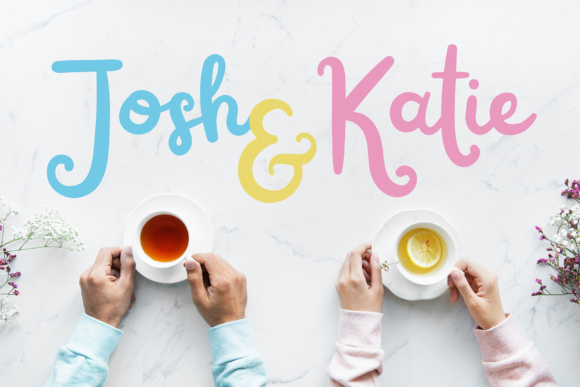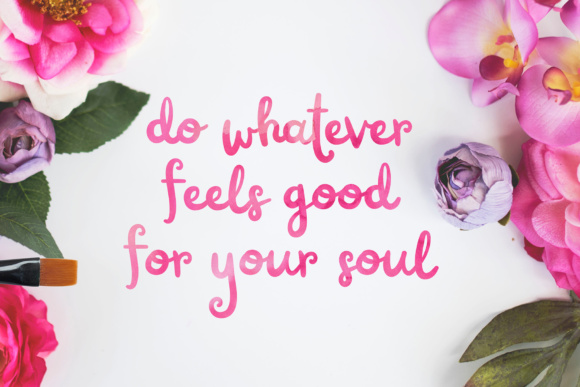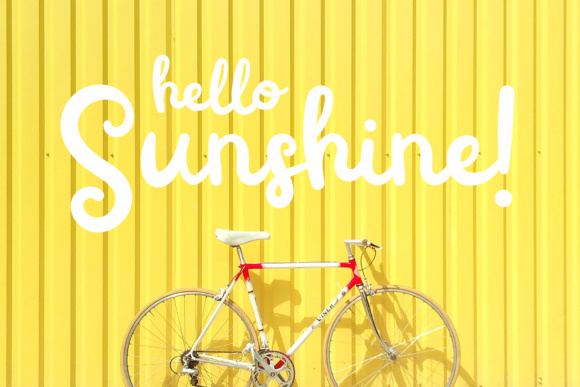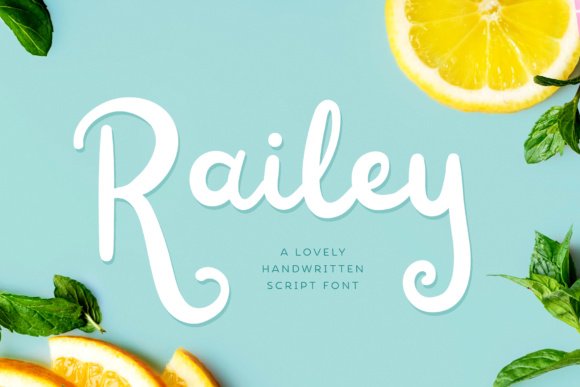
Introduction to Railey Script Font
Railey is a lovely, modern handwritten font.
Railey is perfect for any design & craft project Ideal for quotes, home decors, wedding invites, blog headers, branding, t-shirts, posters & much more.
Key Features of Railey Script Font
Why Choose Railey Script Font?
Railey Script Font offers exceptional quality and versatility, making it a valuable addition to your design toolkit. Whether you’re creating for personal projects or commercial use, Railey Script Font delivers professional results.